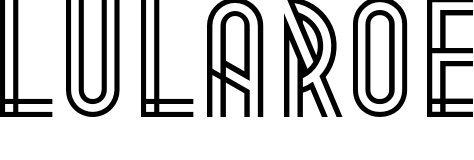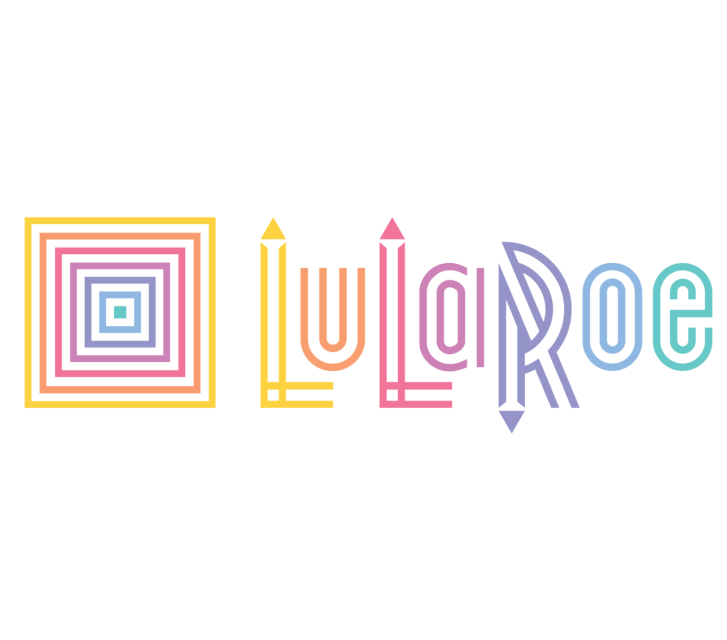
LuLaRoe Font
Fonts in UseLuLaRoe is a multi-level marketing company that sells women's clothing and fashion accessories through independent consultants, known as "Fashion Retailers," who host parties and sell products directly to customers.`